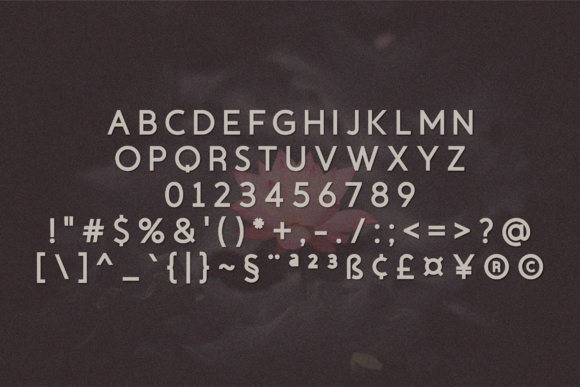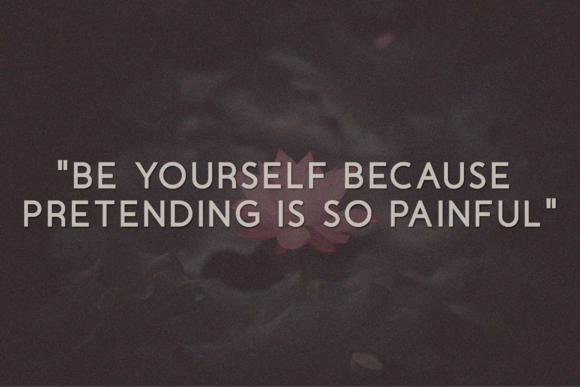
Introduction to Lotuswild Font
Lotuswild is officially a new favorite of mine – this all caps sans serif is so versatile and looks great in just about any context.
With smooth and clean lines, and just a touch of contrast, Versailles works beautifully for logos, branding, and web headings .